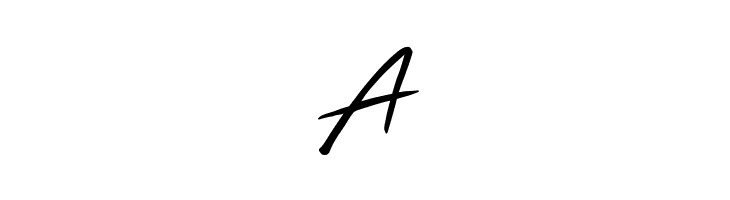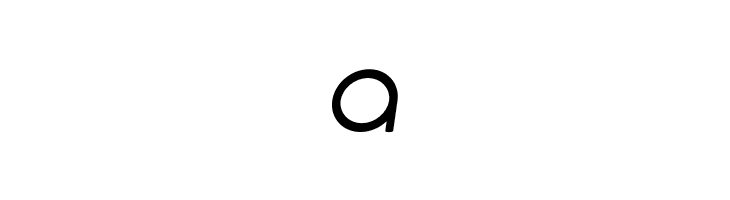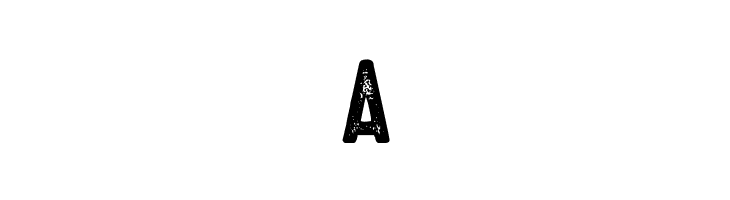
A clean, modern sans-serif font with consistent stroke width and balanced spacing.
A modern, light, italic sans-serif font with sleek, fluid characters.
A modern, clean sans-serif font with uniform strokes and excellent readability.
A modern, italic sans-serif font with balanced proportions and clear readability.
A modern, geometric font with rounded edges and a clean, futuristic look.
A modern, oblique font with rounded characters and a sleek, futuristic design.
A modern, rounded font with a clean and futuristic design.
A modern, rounded font with a slight slant and consistent stroke thickness.
A modern, outline-style font with rounded edges and a tubular appearance.
A modern, oblique outline font with a sleek and dynamic style.
A modern, sleek font with a futuristic and dynamic design.
A modern, geometric font with rounded edges and consistent thickness.
A modern, elongated font with rounded edges and a futuristic style.
A playful, hand-drawn font with bold, uneven strokes and a whimsical style.
A bold, geometric font with a strong, block-like design.
A dynamic script font with a modern, handwritten style.
A bold, energetic script font with smooth curves and a slight slant.
An elegant script font with ornate, flowing letterforms.
A bold, pixelated font with a retro digital style.
A bold, modern font with uniform strokes and strong visual impact.
A bold, heavy font with a rough, distressed texture for a rugged, industrial look.
A bold, distressed font with a rough, vintage texture.
A futuristic, pixelated font with horizontal line detailing.
A futuristic, pixelated font with a high-tech aesthetic.
A modern, clean sans-serif typeface with excellent readability and versatility.
A bold, modern sans-serif font with strong legibility and clean lines.
A clean, modern sans-serif font with a light weight and excellent readability.
A modern, medium-weight sans-serif font with clean lines and balanced proportions.